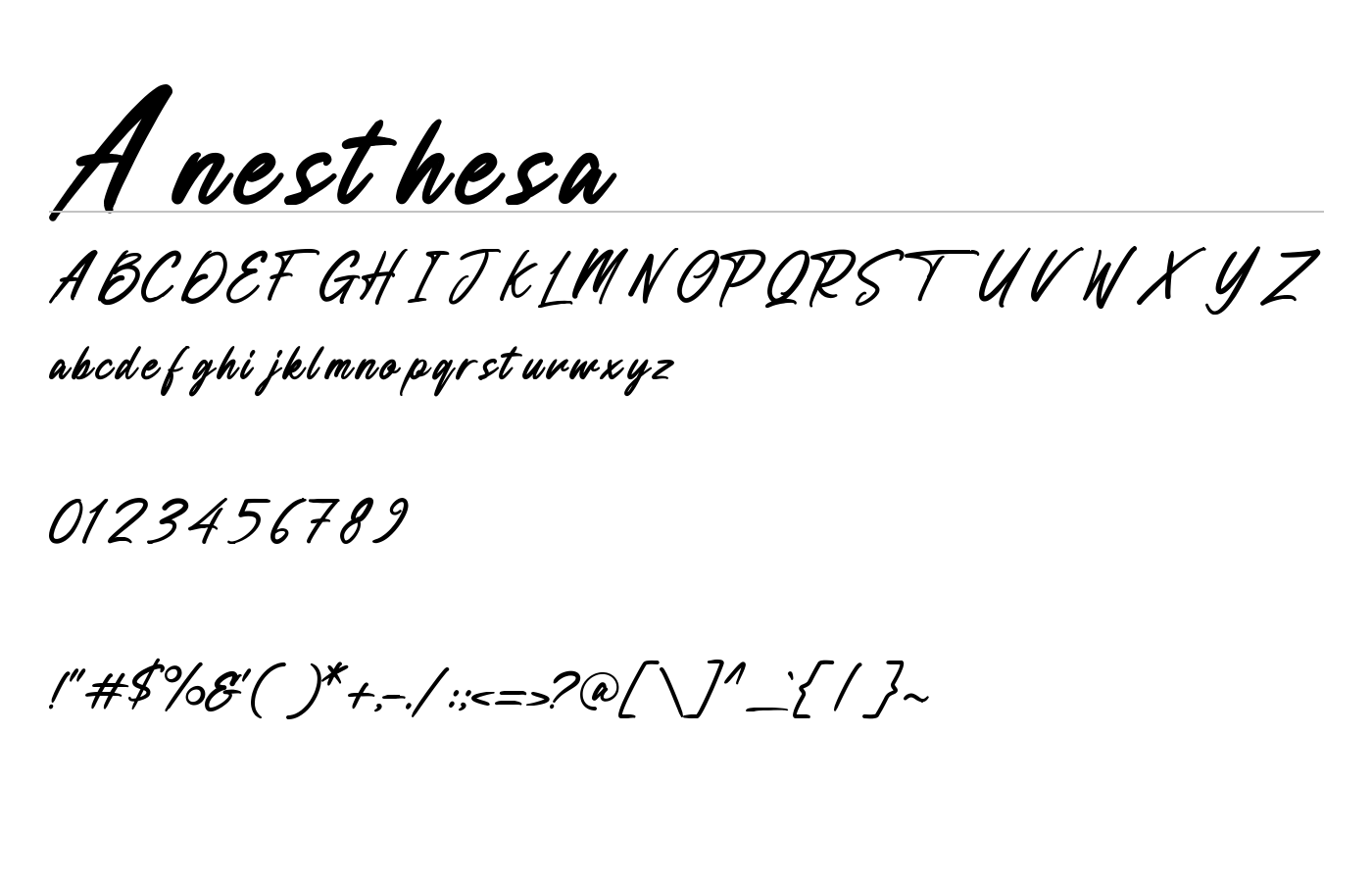
Anesthesa is a sleek, handwritten script font with a casual yet elegant feel, featuring a smooth, flowing stroke that mimics natural penmanship. Its light weight and slight slant make it perfect for adding a personal, approachable touch to branding, invitations, and social media graphics, while maintaining readability and charm. This font works well in creative and lifestyle contexts where a stylish, modern handwritten look is desired.
Anesthesa Font
About Anesthesa Font
| Font family | Anesthesa Font |
| Designer | MaulanaCreative |